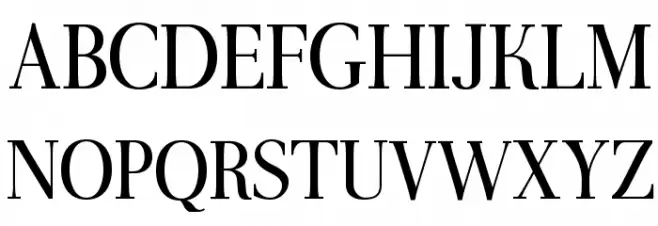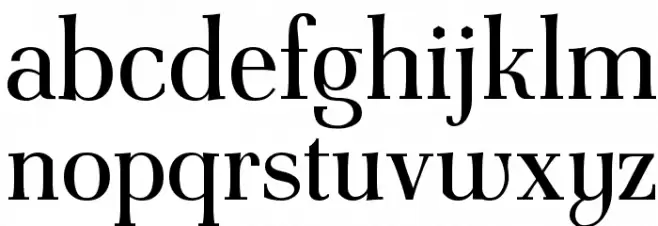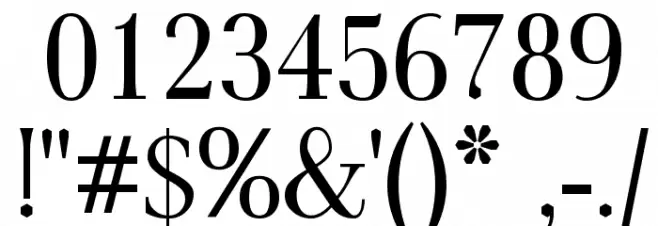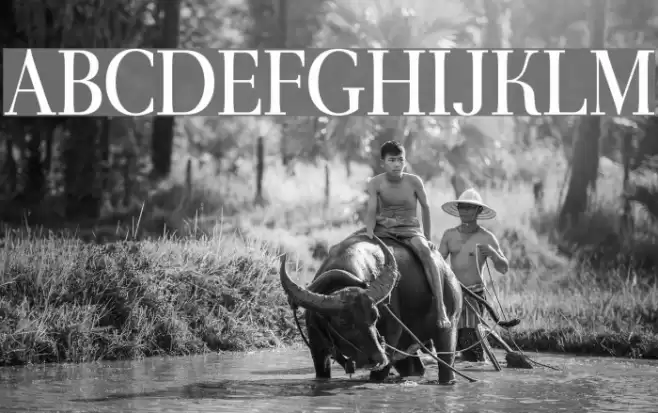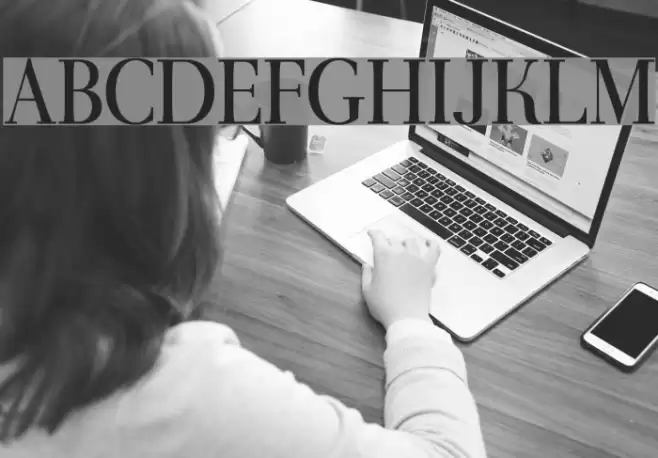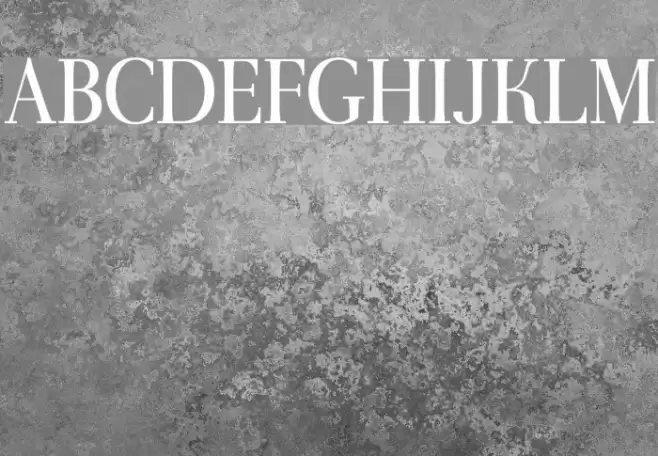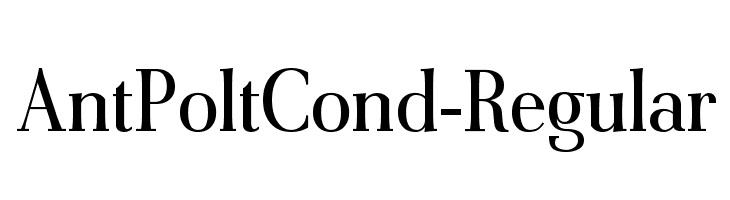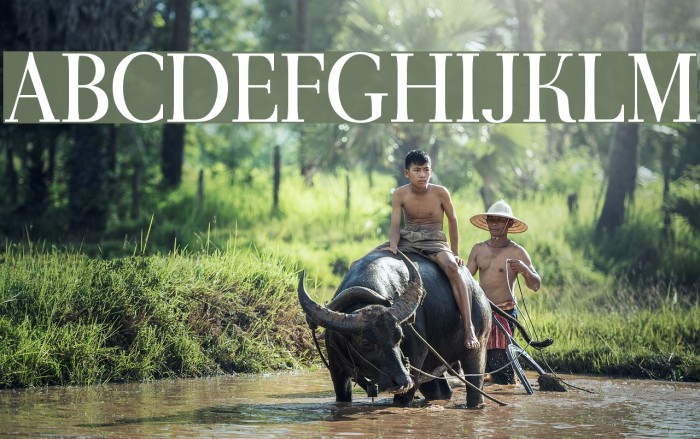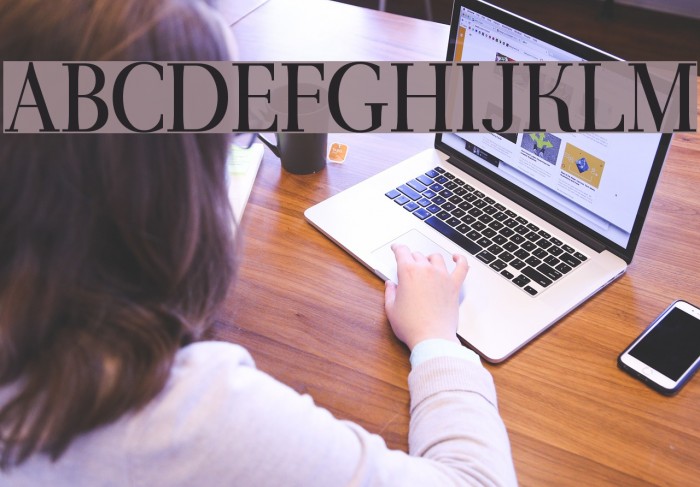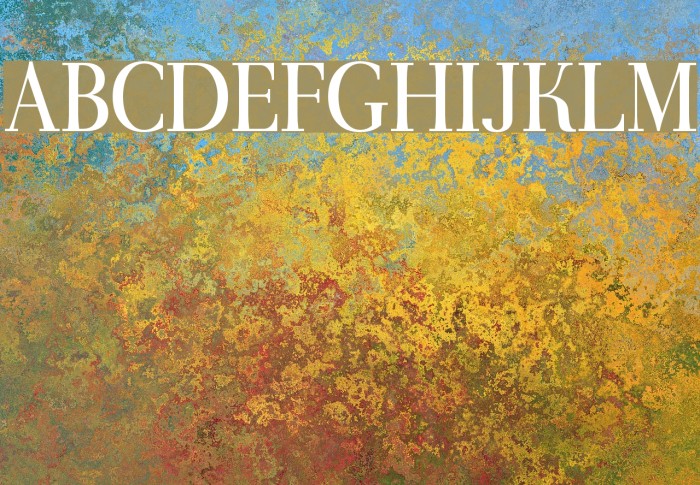
AntPoltCond-Regular
This font features a classic serif style with elegant, narrow letterforms that convey a sense of sophistication and tradition. The characters are well-defined with sharp serifs and a moderate contrast in stroke thickness, giving it a refined and professional appearance. The uppercase letters are tall and commanding, while the lowercase letters maintain a consistent height, ensuring readability. The numerals are clear and distinct, and the special characters are designed to complement the overall aesthetic. This font is suitable for projects that require a touch of elegance and formality.
A classic serif font with narrow, elegant letterforms and moderate contrast.
- Proposed Projects: Ideal for editorial design, book covers, formal invitations, and branding materials.
- Category: Serif
- Width: Condensed
- Overall Style: Classic